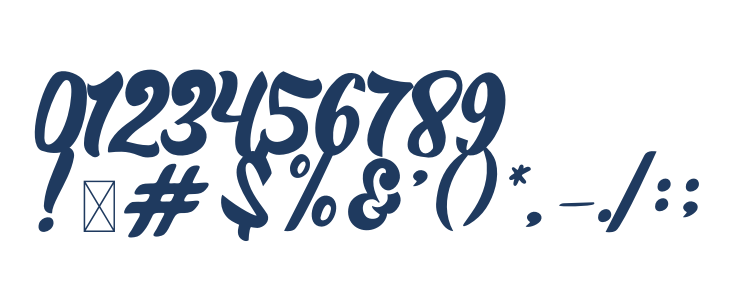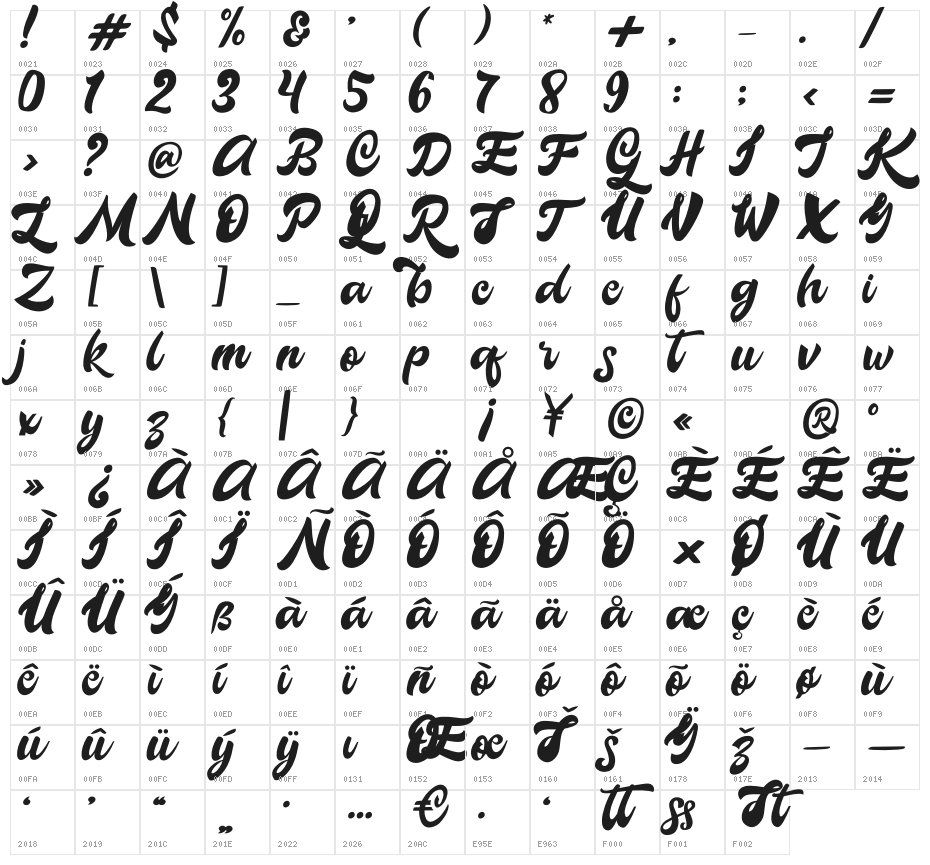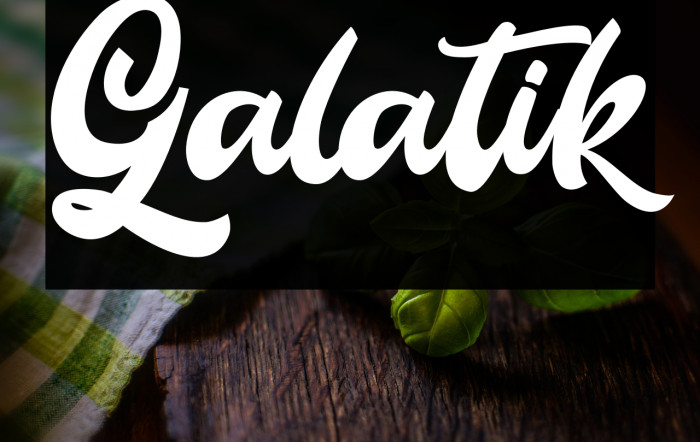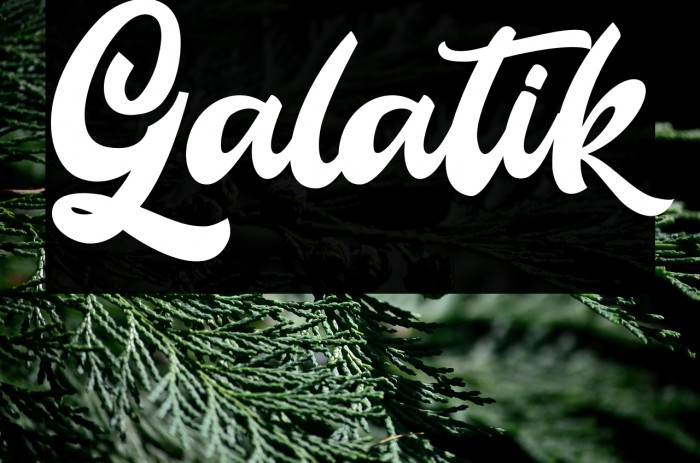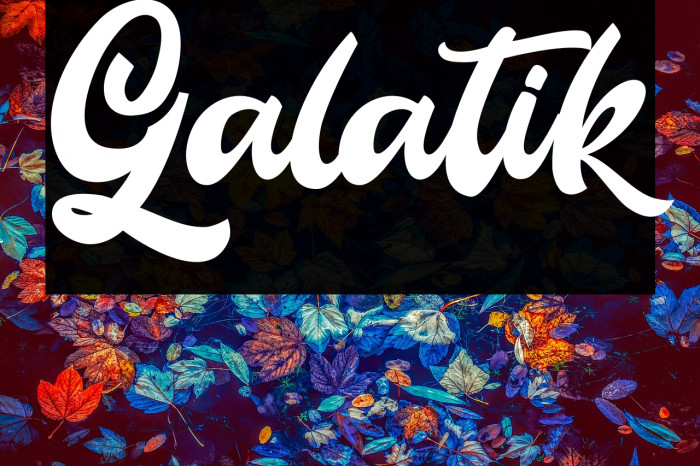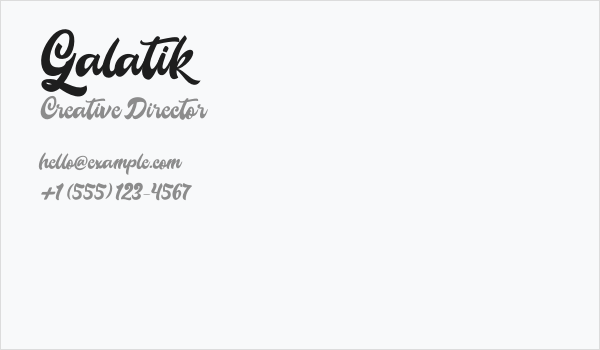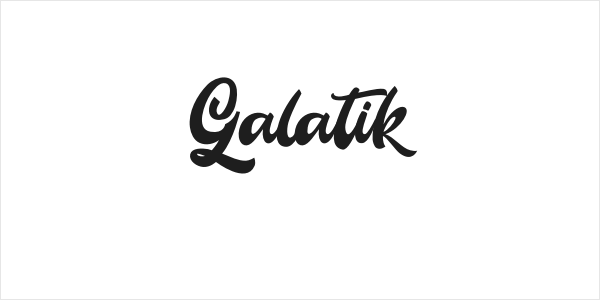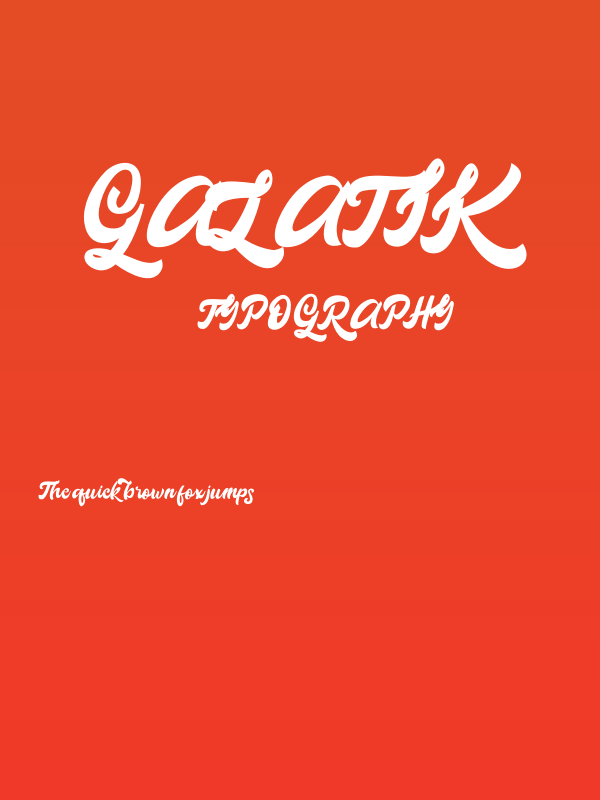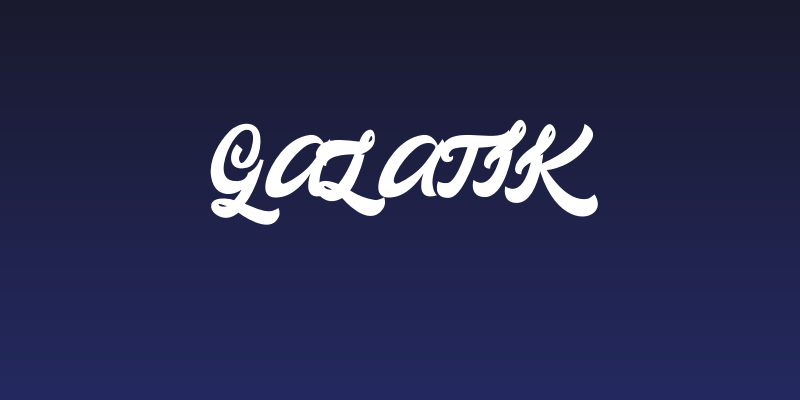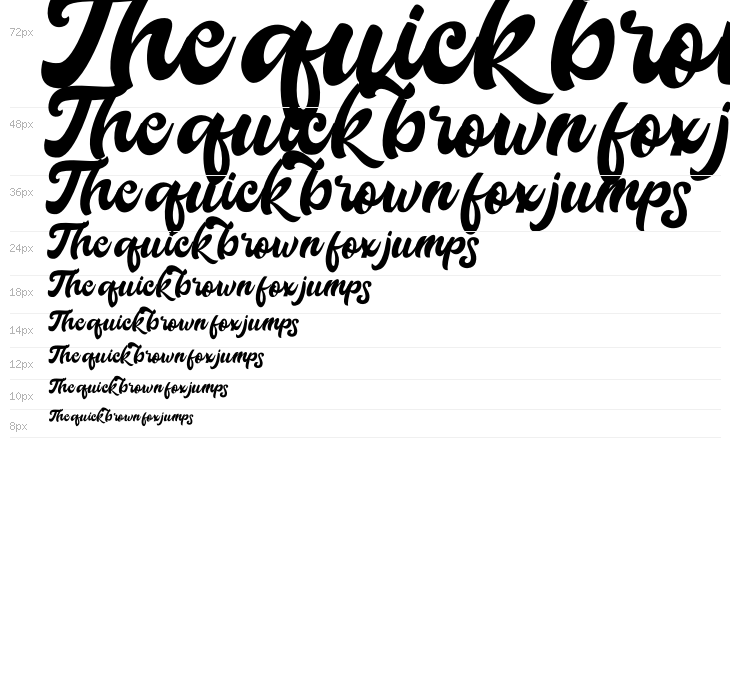
Galatik Font
Galatik Description
This font features a bold and expressive script style, characterized by its flowing, cursive letterforms. The strokes are thick and dynamic, with a high contrast between the thick and thin parts of each character. The uppercase letters are particularly dramatic, with sweeping curves and flourishes that give them a sense of movement and elegance. The lowercase letters maintain this fluidity, creating a cohesive and harmonious look. Numbers and special characters are designed with the same boldness, ensuring consistency across all elements. This font's energetic style makes it suitable for projects that require a touch of personality and flair.